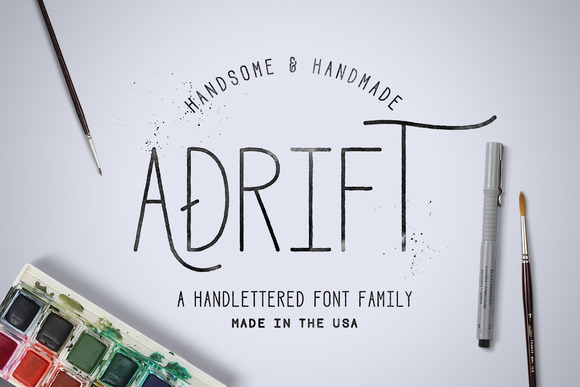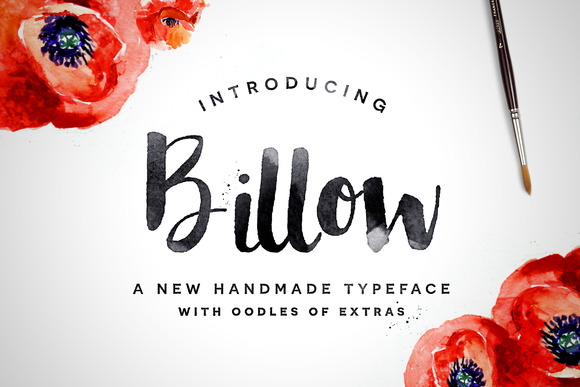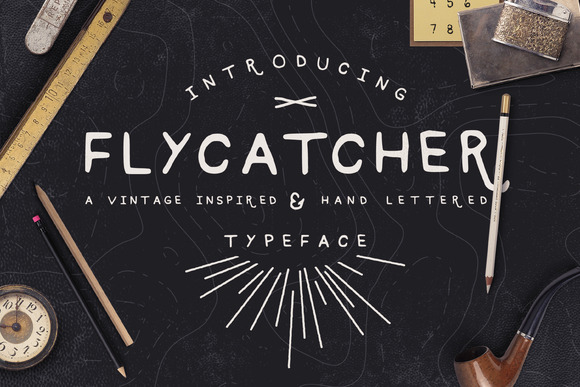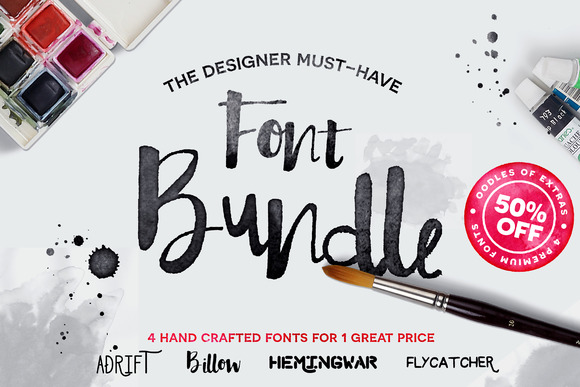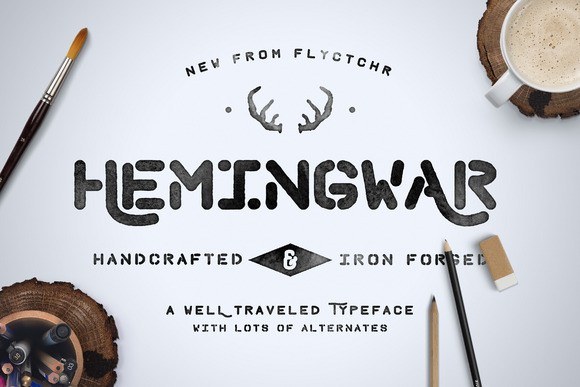
Hand Crafted Font Bundle
It’s official, after months of hand crafting each of these typefaces I’ve bundled them up and slapped a sweet price tag on em! If you love hand lettering, this Font Bundle is for you! Perfect for creating logos, typography, and prints with that hand-drawn aesthetic, the Hand Crafted Font Bundle is filled with everything you need to do get the job done!